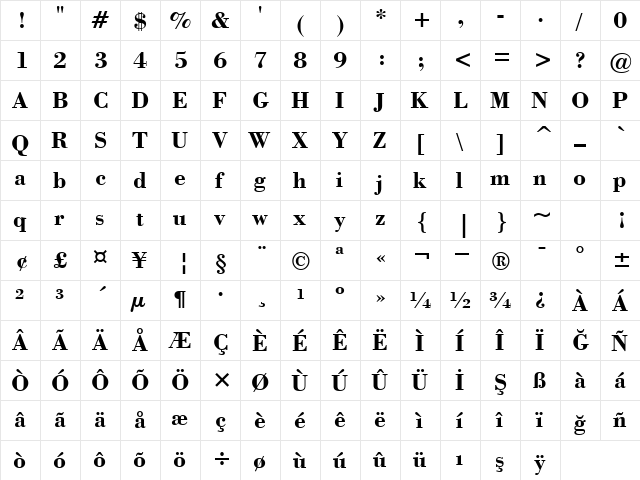
00278 Regular
Design Context for 00278 Typeface
00278 is a composed and adaptable typeface that performs quietly and consistently across a wide range of design contexts.